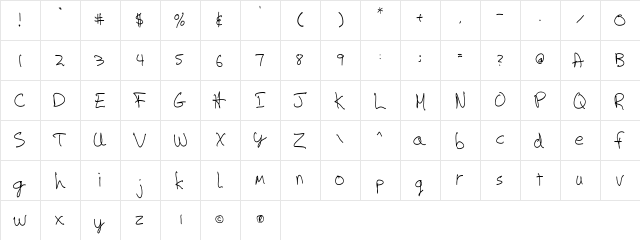
Artskyd Hand Artskyd Hand
| Foundry | Mark Dykstra |
| Designer | Mark Dykstra |
Design Context for Artskyd Hand Typeface
Artskyd Hand flows with the natural rhythm of handwritten lettering, making it ideal for designs that call for warmth and personal expression.
Font Pairing: Combine Artskyd Hand with a simple geometric sans for maximum contrast — the tension between flowing curves and clean structure is a classic typographic pairing.
Pro Tip: Pair Artskyd Hand with a clean sans-serif for supporting text. The contrast between fluid script and geometric structure creates an elegant typographic hierarchy.